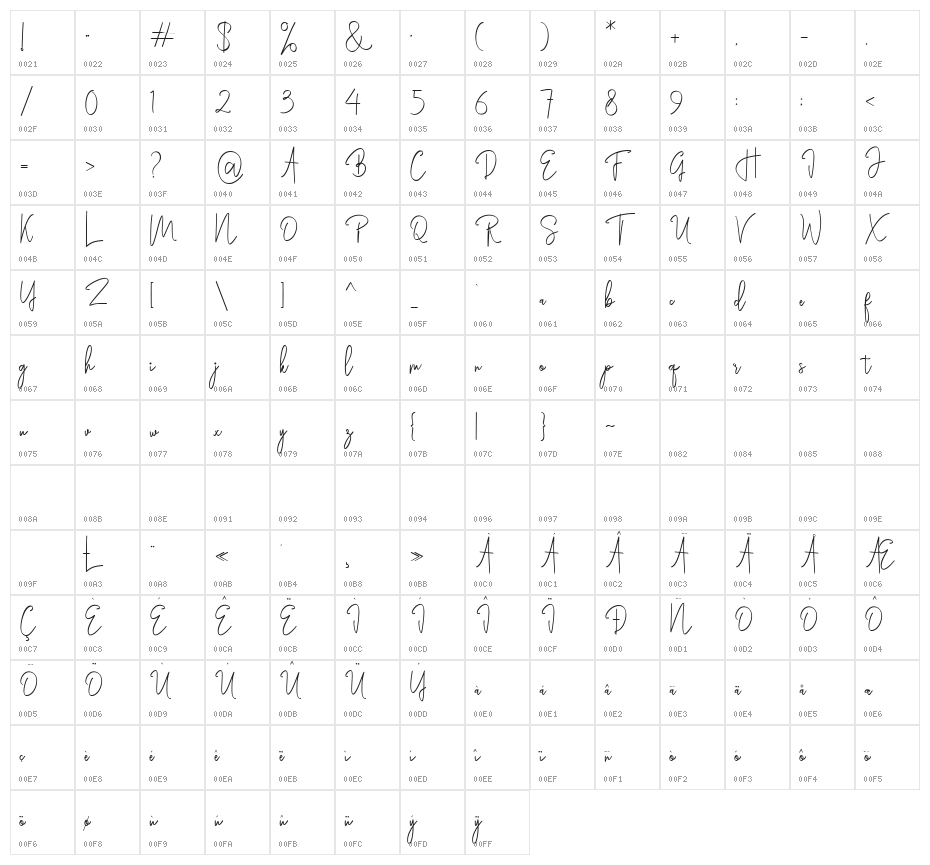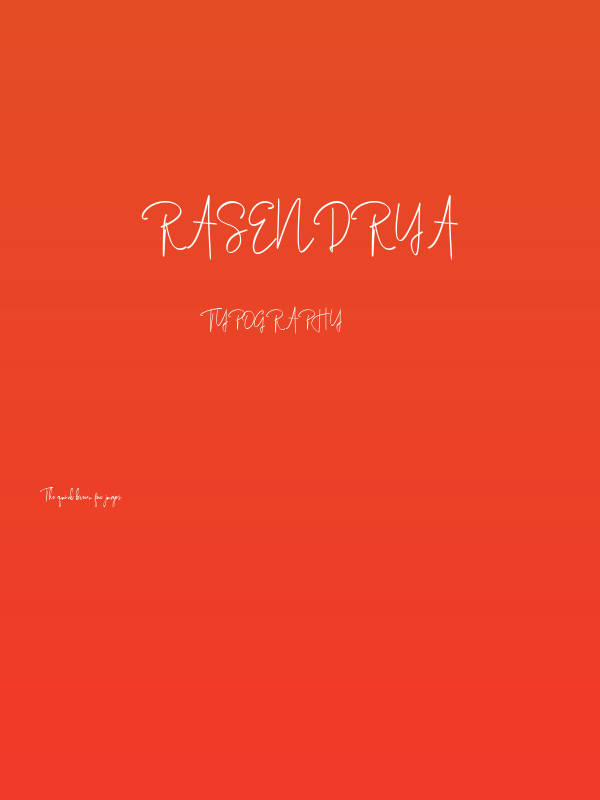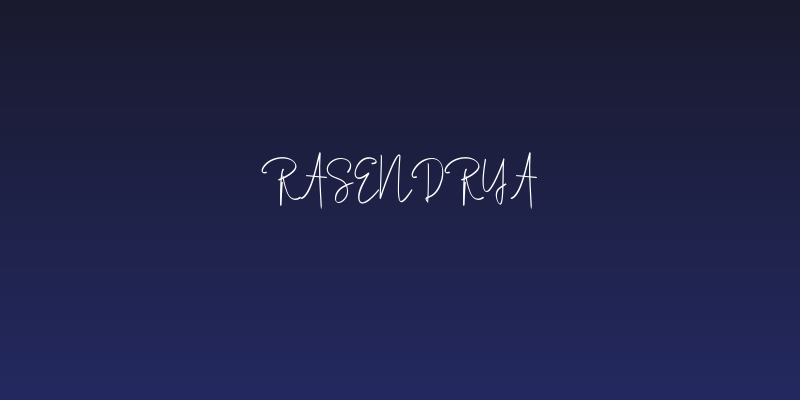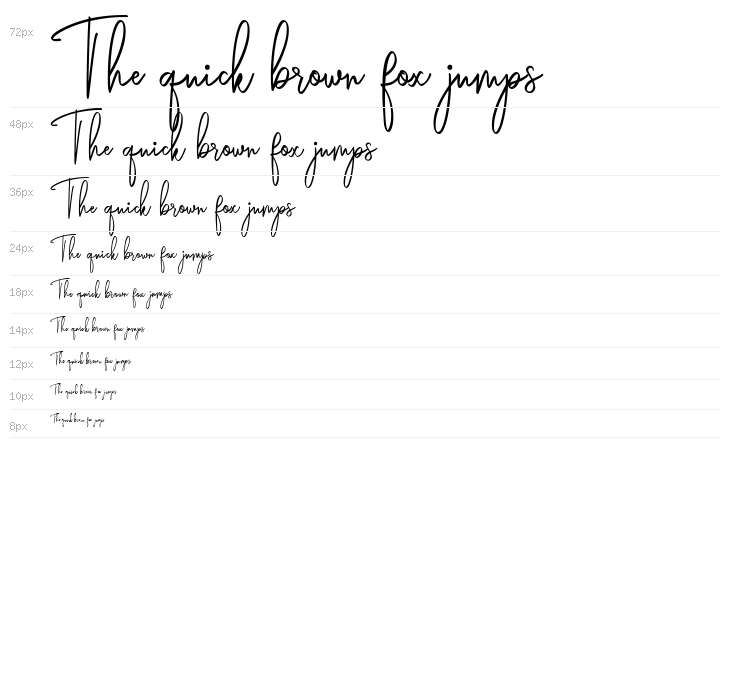
Rasendrya Font
Rasendrya Description
This font features a playful and elegant script style with a handwritten feel. The uppercase letters are tall and slender, with a slight slant that adds a dynamic flow. The lowercase letters are more connected, showcasing smooth curves and loops that enhance its cursive nature. The numerals are consistent with the overall style, maintaining a balance between readability and artistic flair. Special characters are thoughtfully designed to match the font's aesthetic, making it versatile for various creative applications.
| Use Case | Logos, Invitations, Social Media Graphics |
| Proposed Projects | Ideal for wedding invitations, greeting cards, branding projects, and social media graphics. |